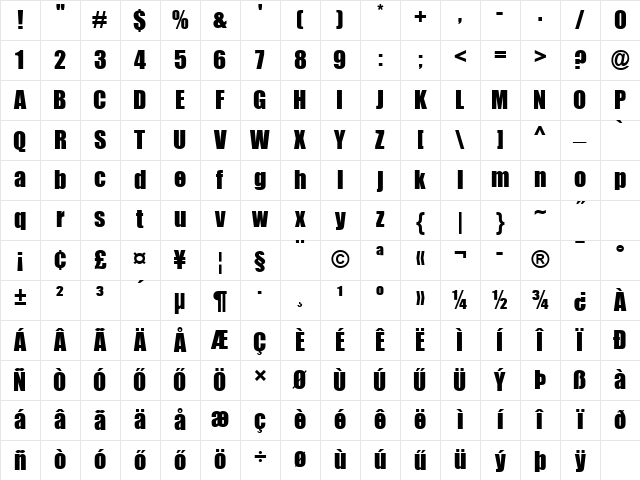
H_Impact Regular Free Font
H_Impact Regular
Design Context for H_Impact
H_Impact brings high-energy athletic personality to the page - its confident, muscular forms are built for impact.
Pro Tip: Use H_Impact in all-caps headlines where its athletic energy can fully express itself. Pair with a solid, simple sans for supporting text.